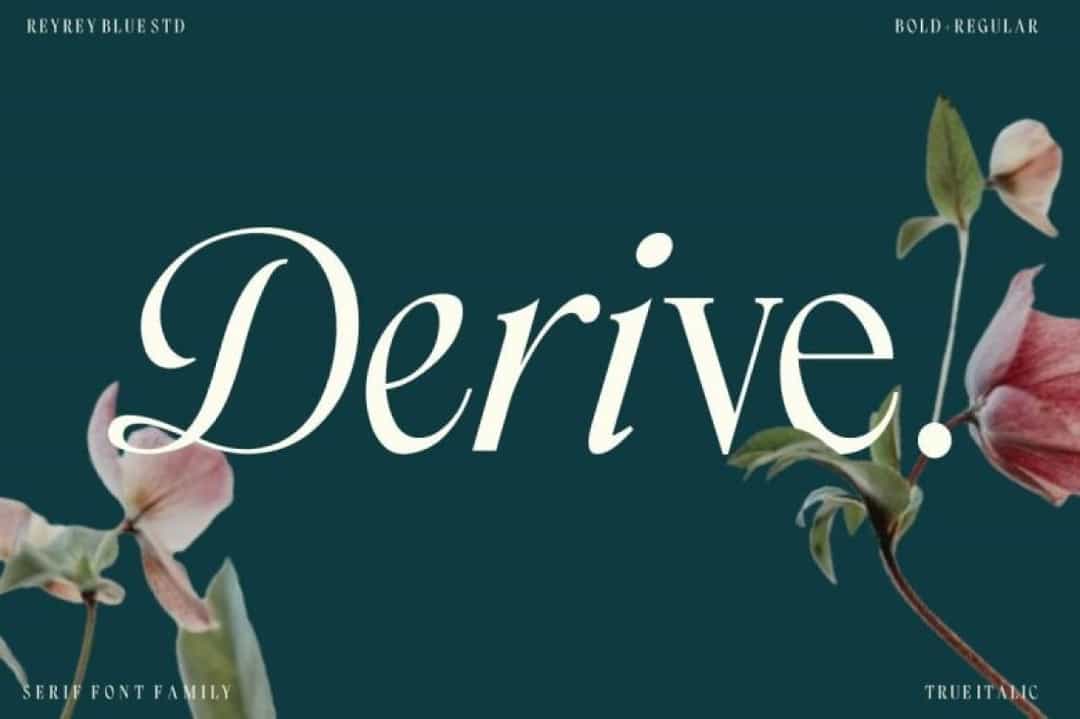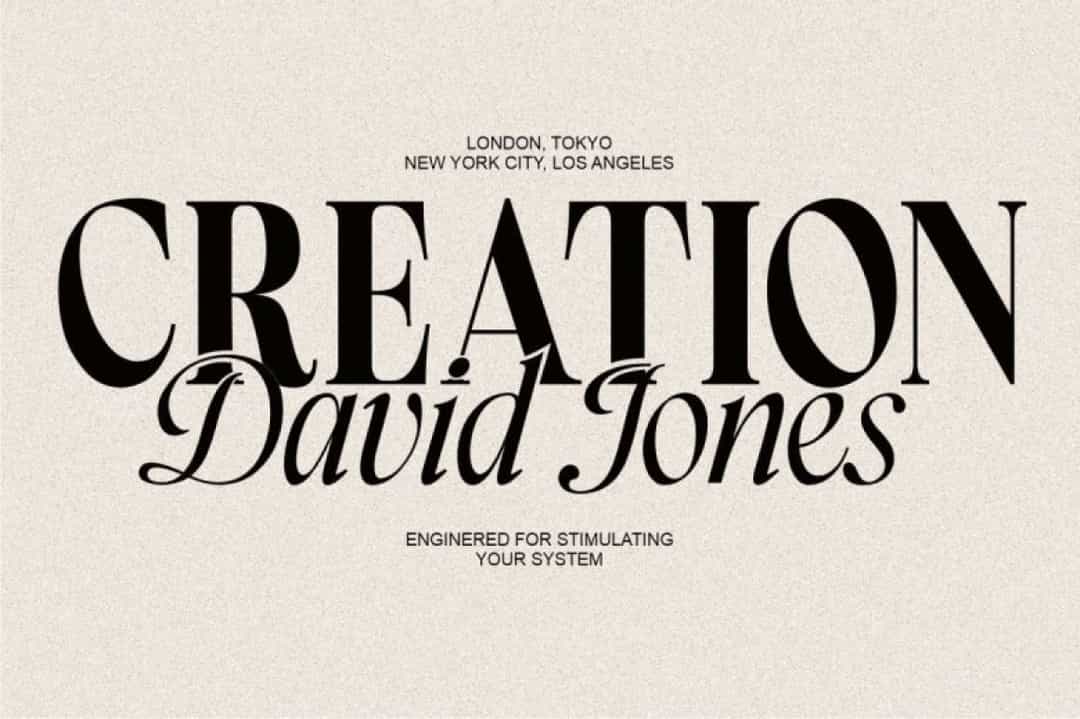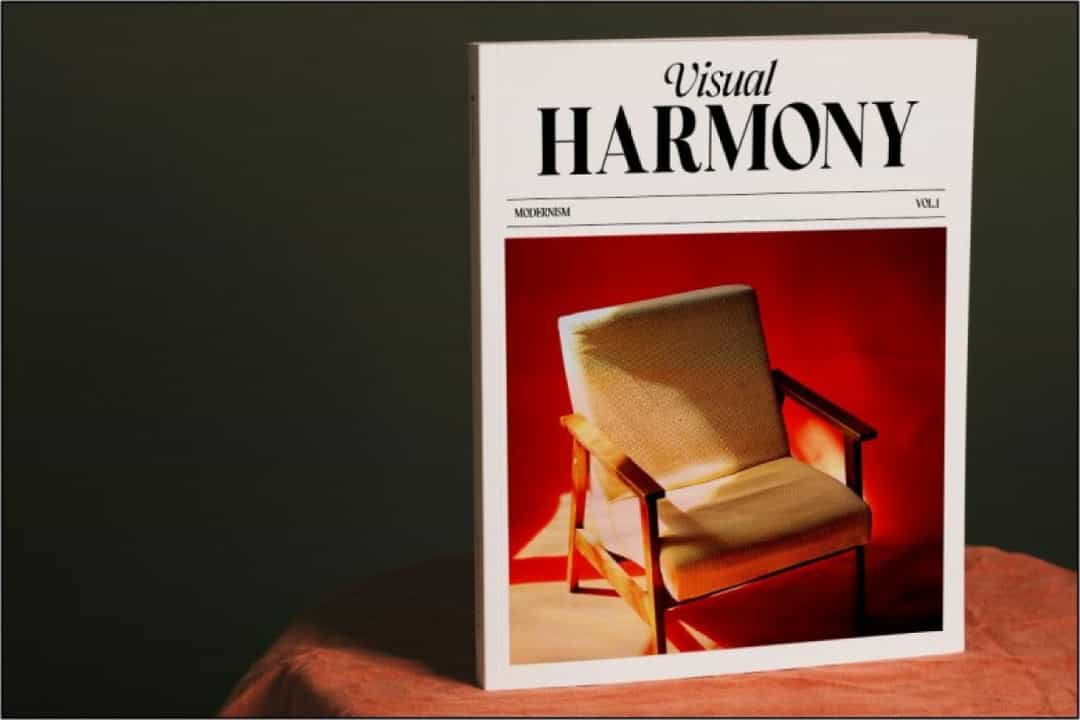
Create an elegant serif font that draws users in with its distinct style, seamlessly merging modern sophistication with classic refinement. Its distinctive serifs and elegant letters ooze sophistication, making this typeface an excellent option for projects which demand the utmost in class and modern elegance.